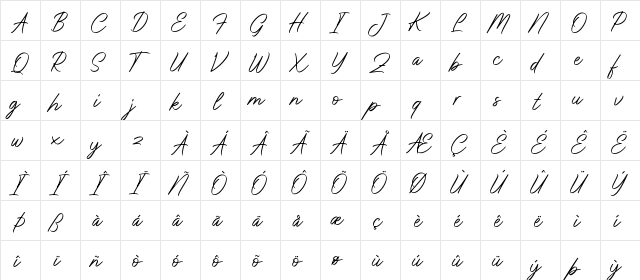
Don Carlitto Regular
Design Context for Don Carlitto Typeface
Don Carlitto is a composed and adaptable typeface that performs quietly and consistently across a wide range of design contexts.